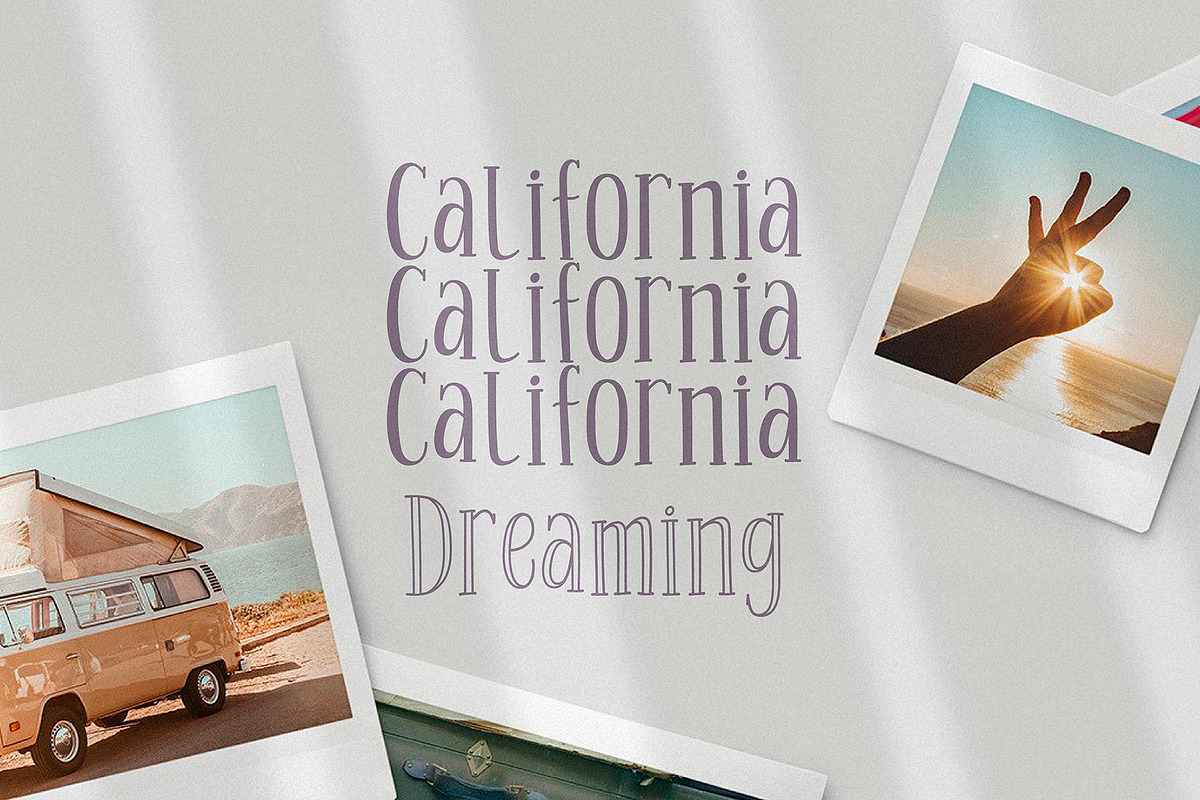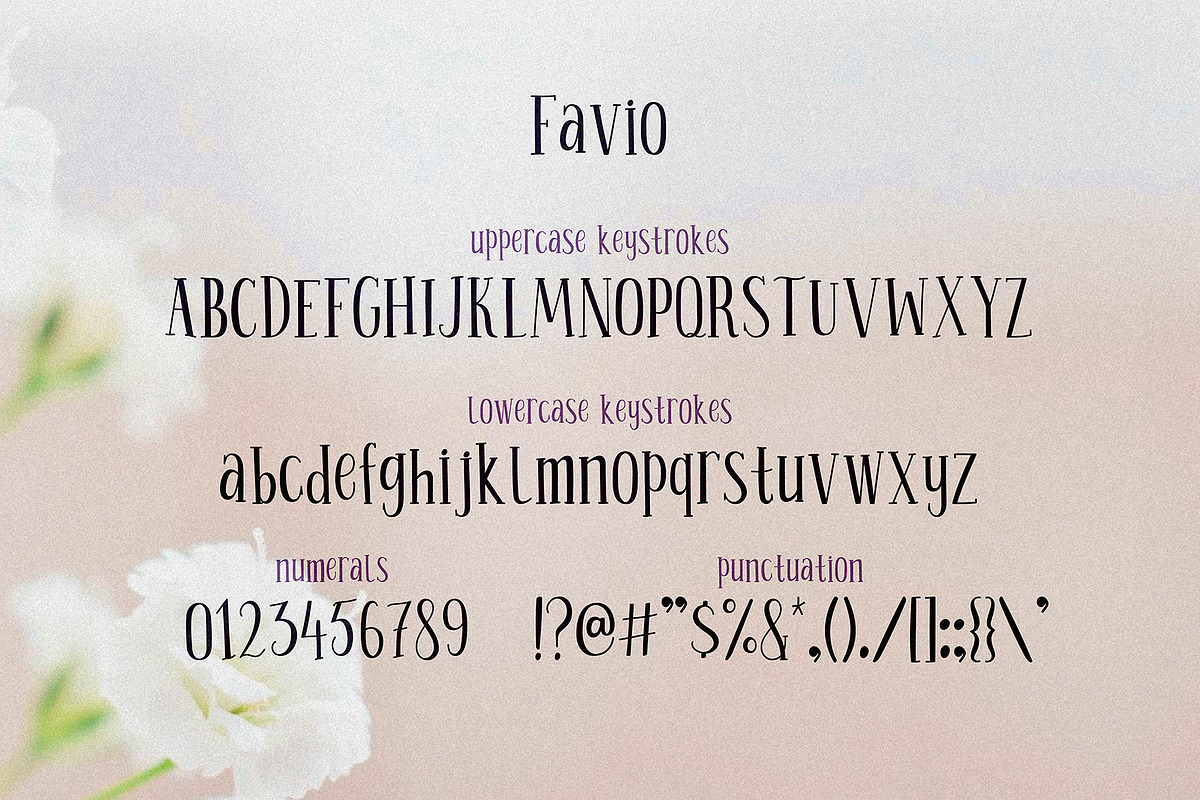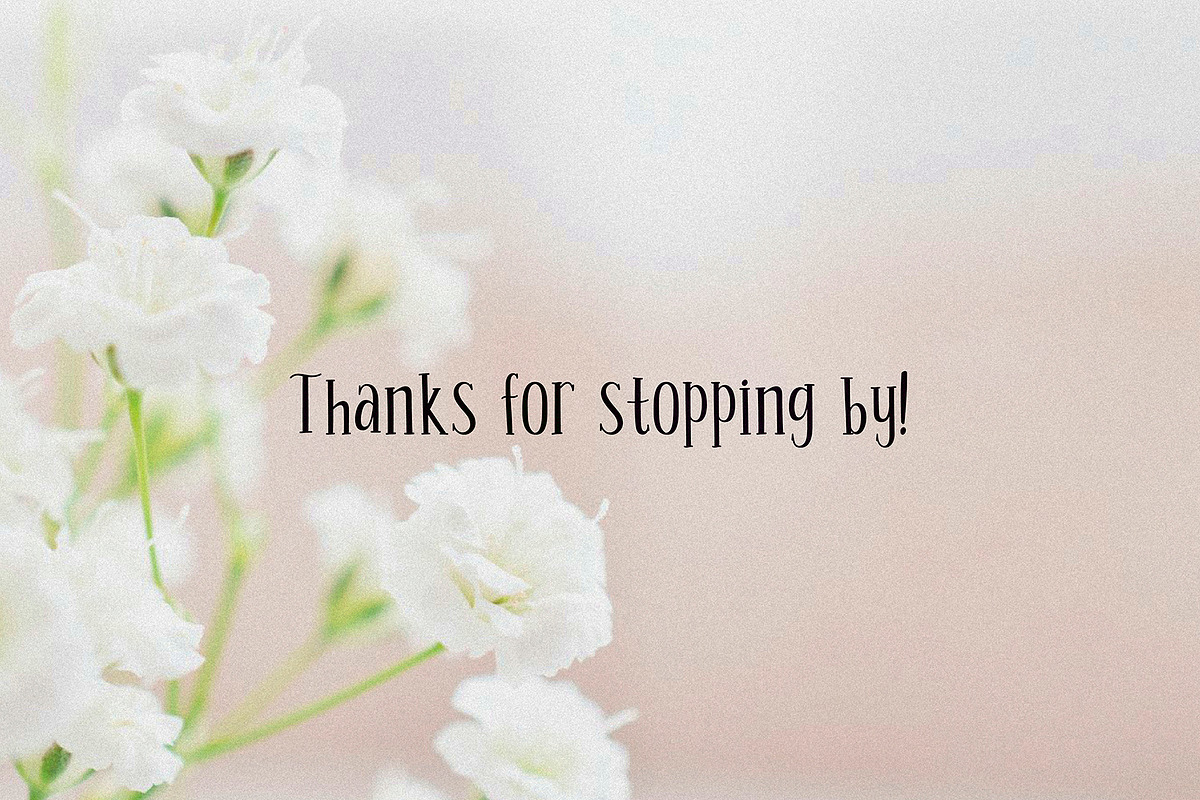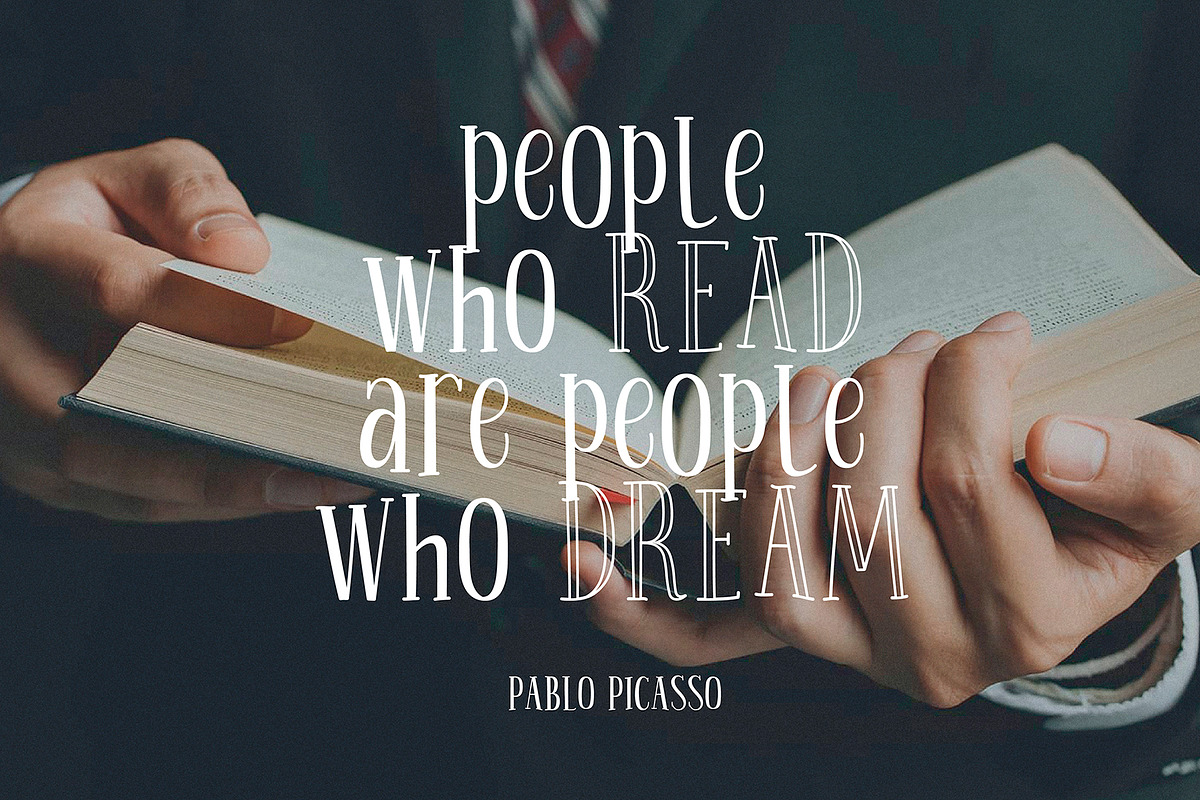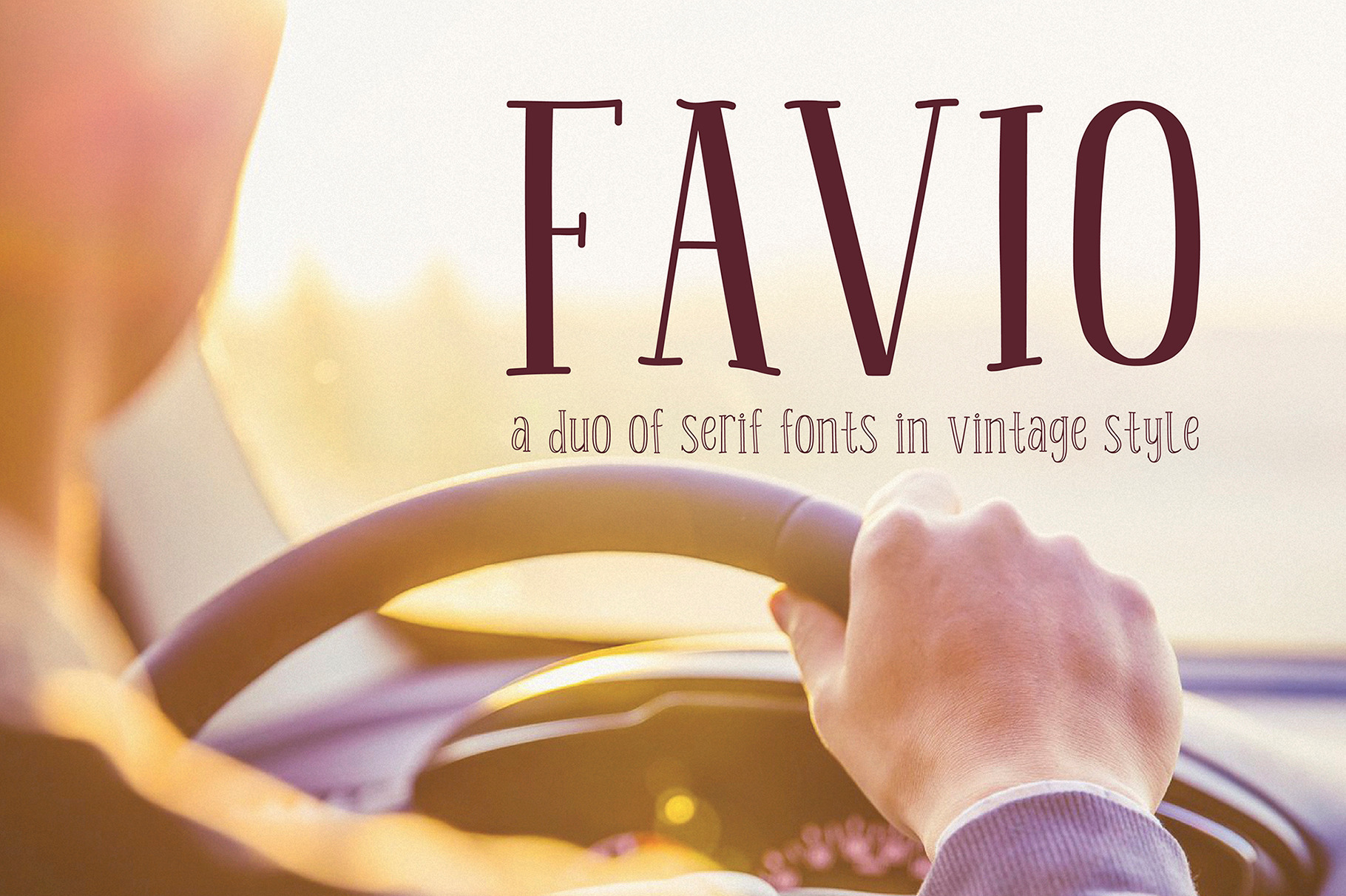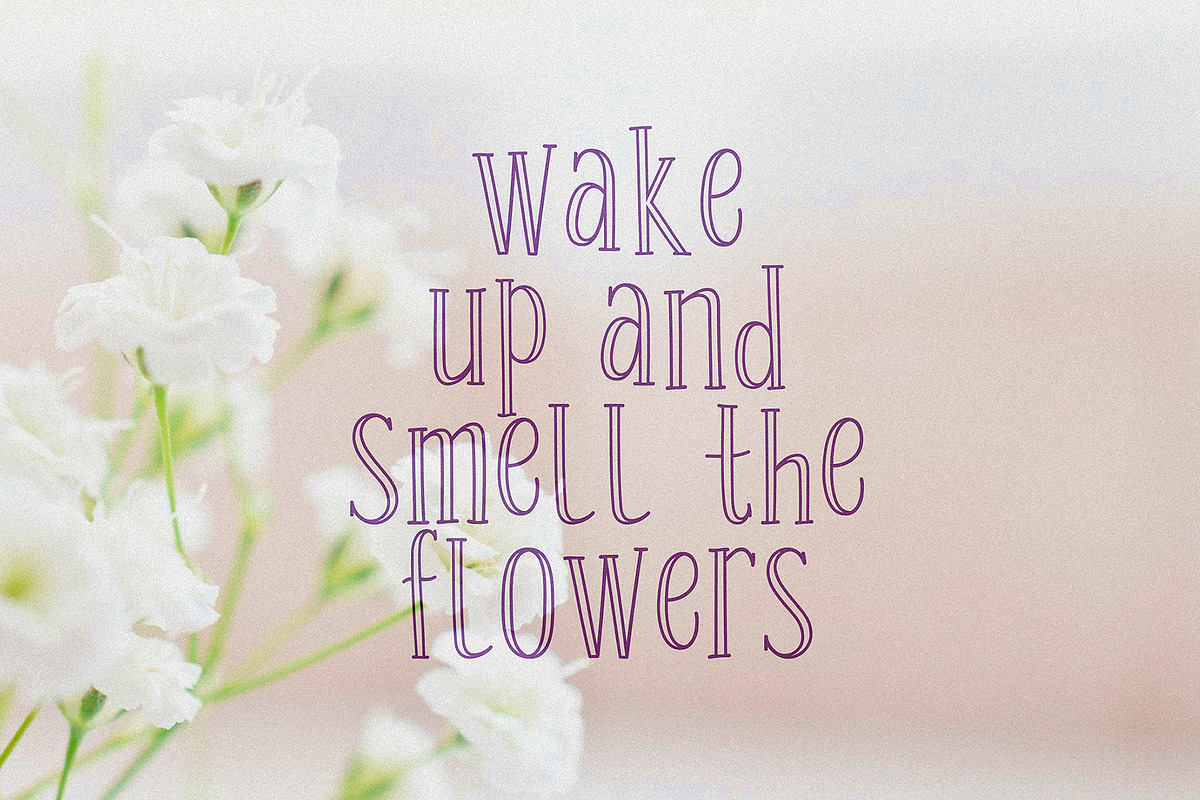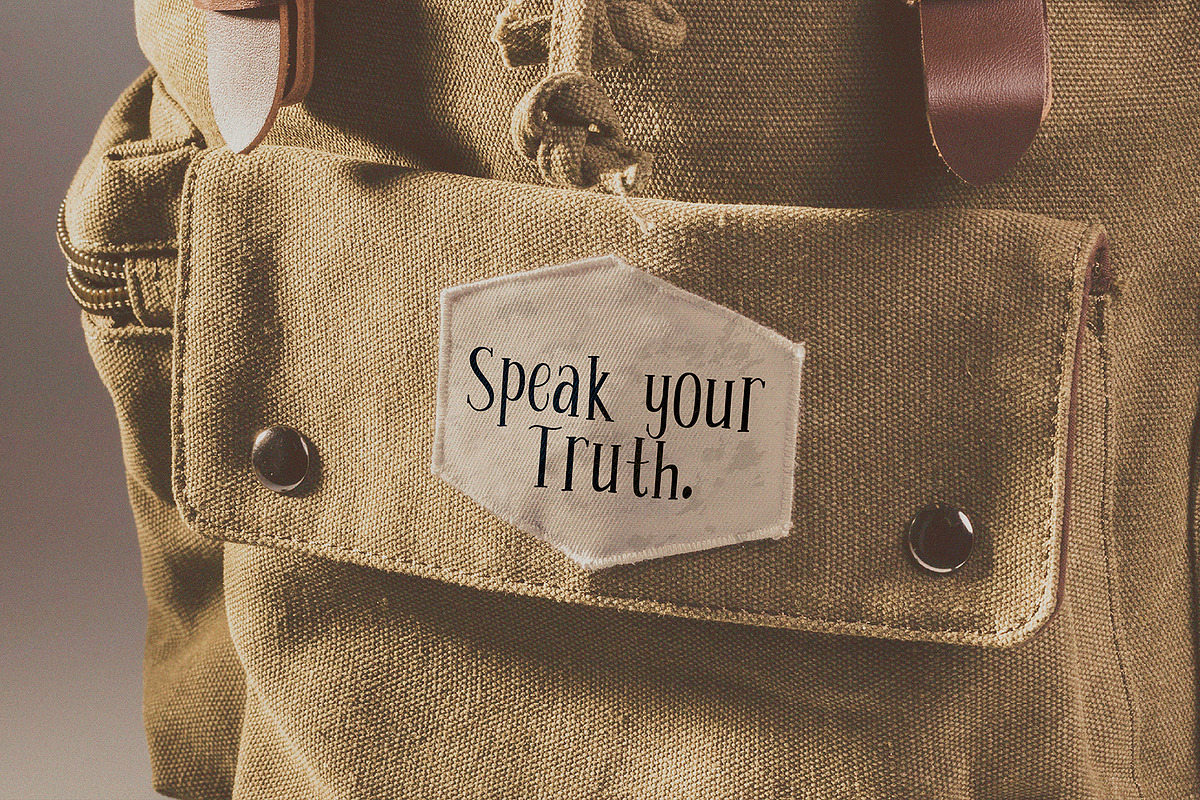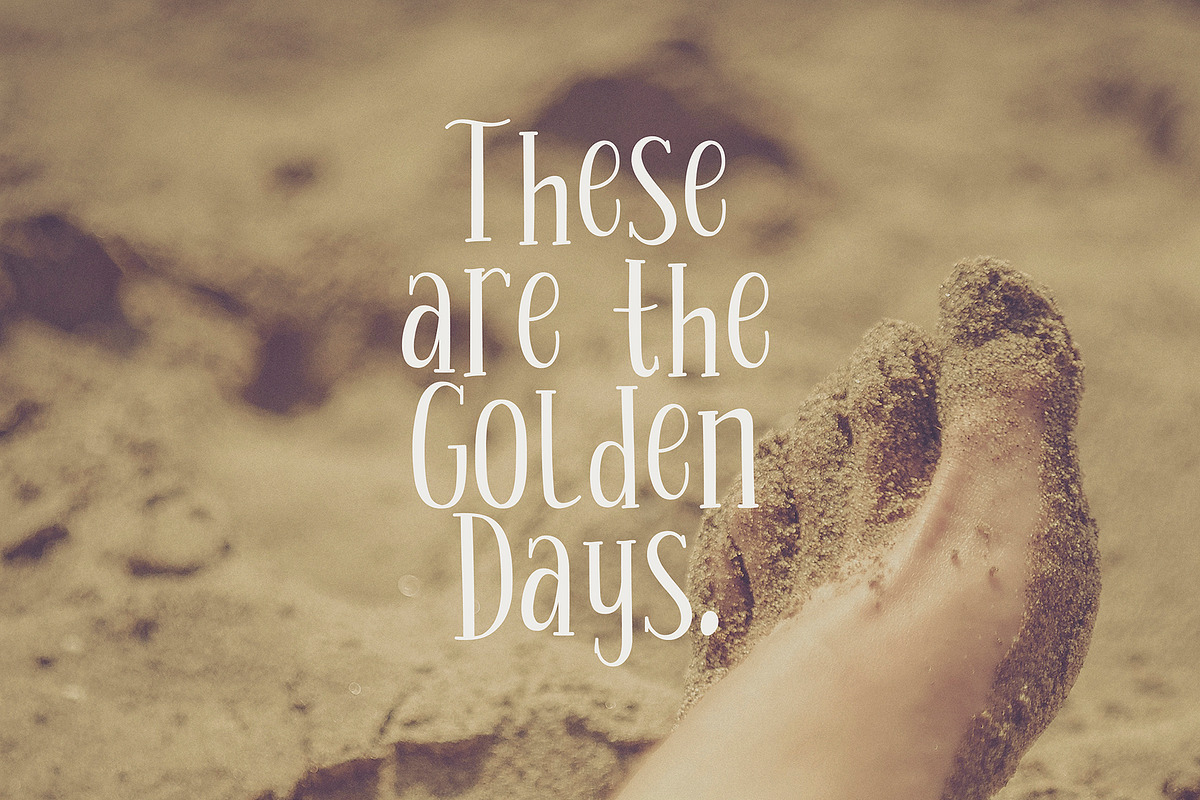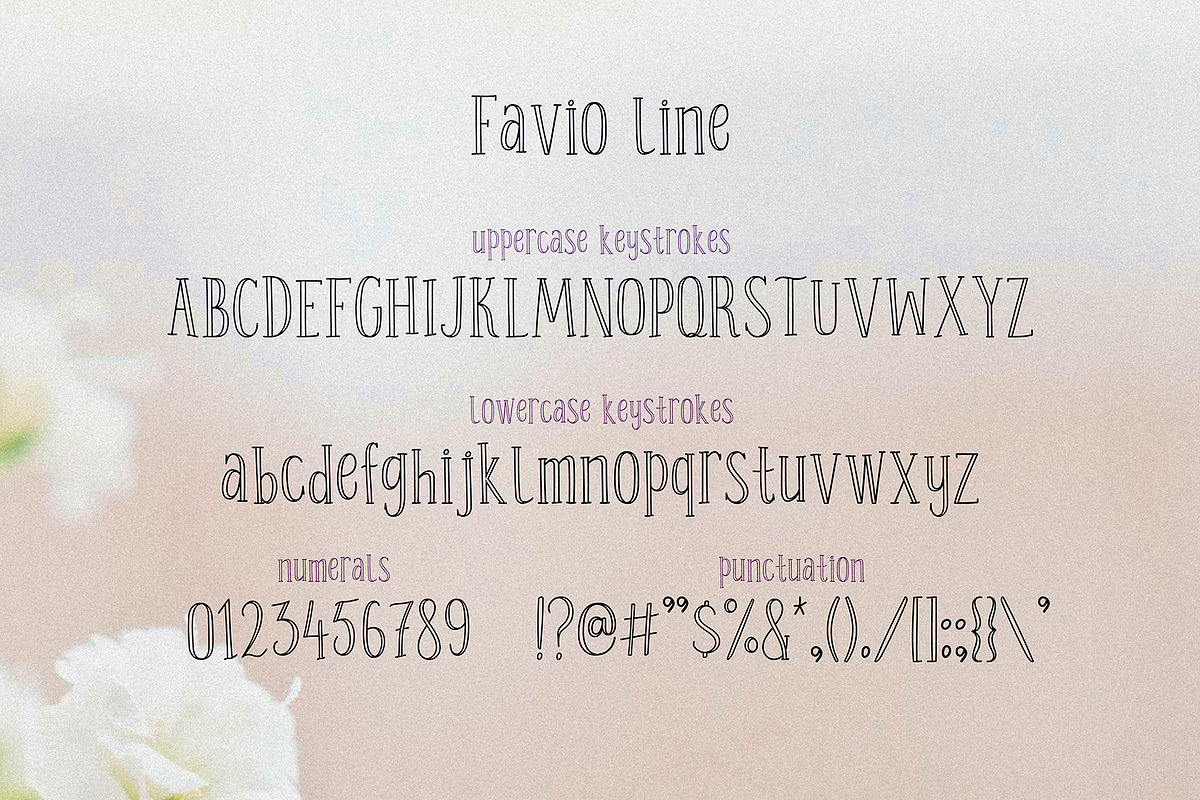
Favio - playful duo of vintage fonts
I present to you an elegant, playful and very harmonious duo of serif fonts "Favio", inspired by ancient printed texts. It looks great on its own as part of a minimalist design. Play with letters to get different effects. The font "Favio" is guaranteed to give your text an individual and very attractive look.
Great for branding, wedding invitations, packaging, quotes and labels. And it is also a bold choice of typography for the design of logos, album covers, illustrations, children's books, posters and much more.
- A-Z; a-z character set;
- 1 language (English);
- numbers and punctuation marks, symbols.